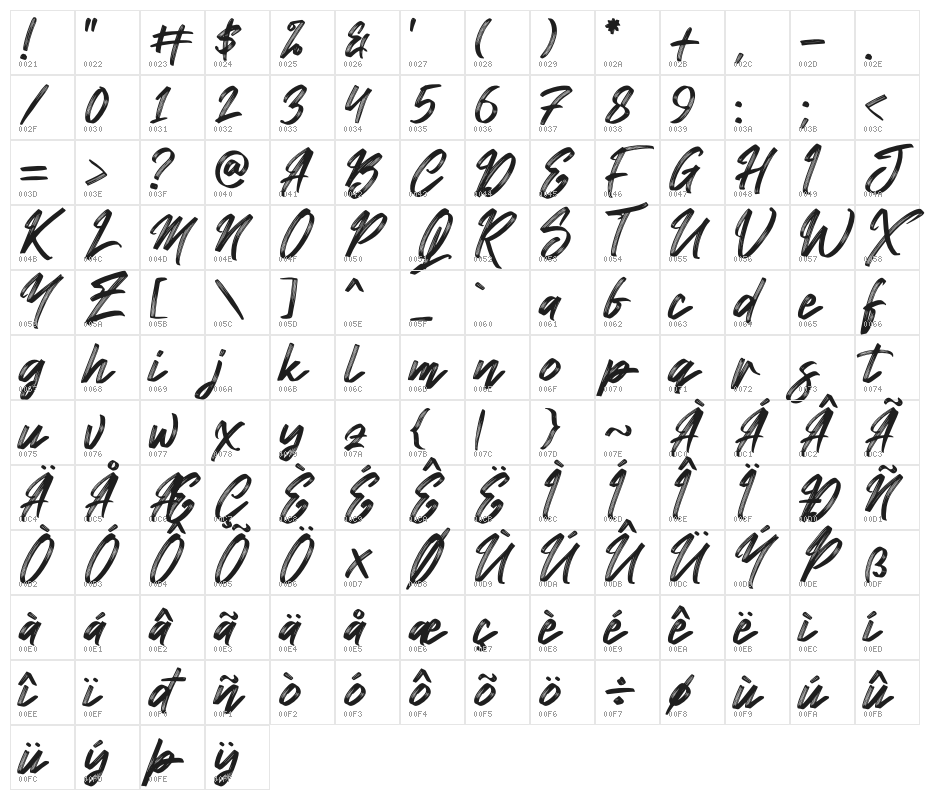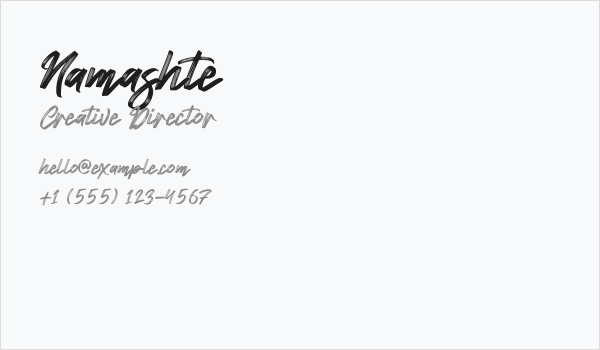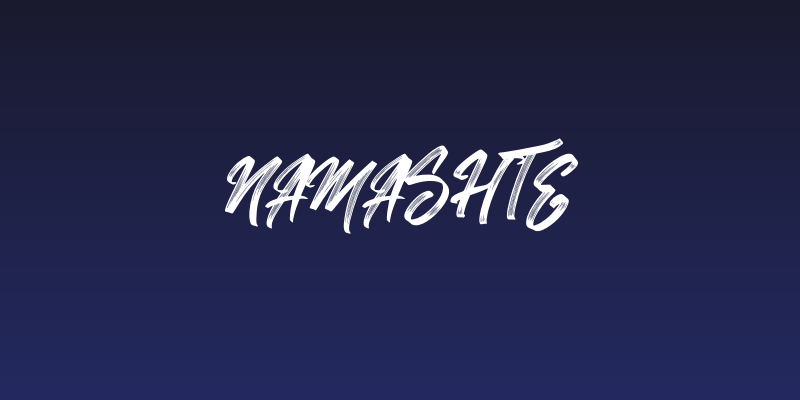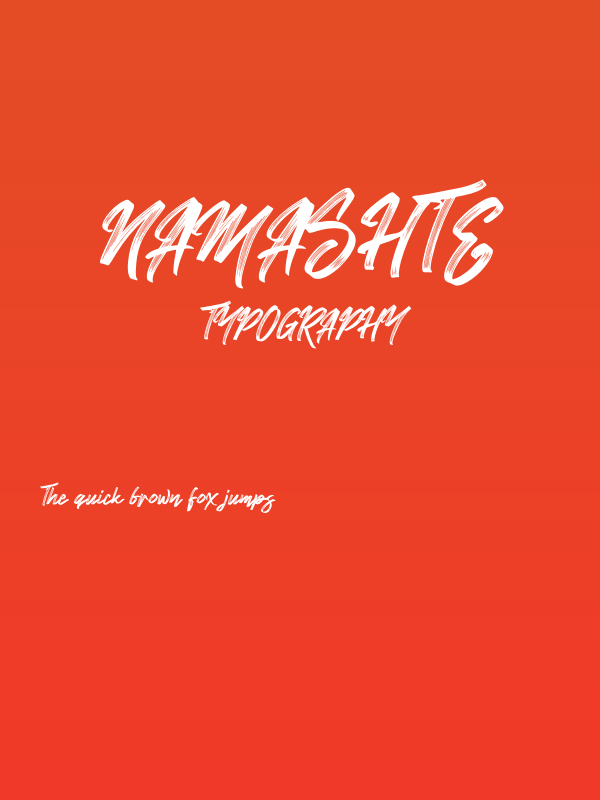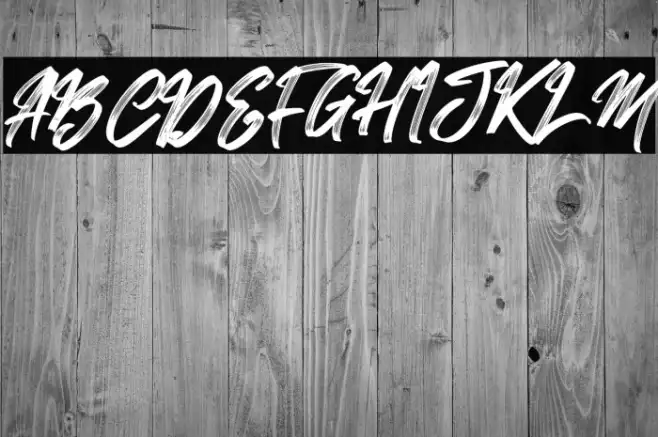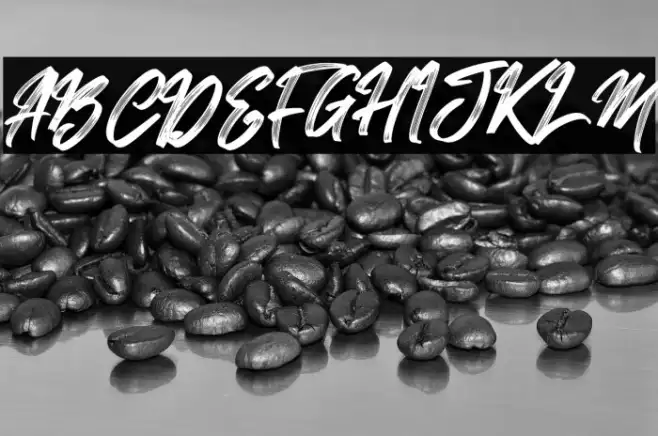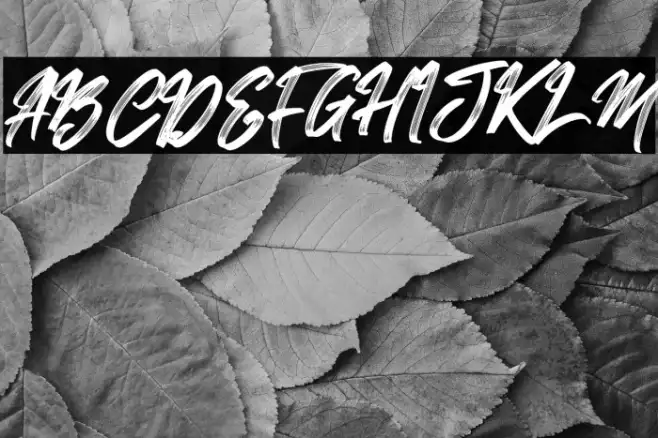
Namashte Font
Namashte Description
This font exudes a dynamic and energetic vibe with its bold, brush-like strokes. The letters are crafted with a sense of movement, giving them a hand-painted appearance. The uppercase and lowercase characters maintain a consistent style, with slightly exaggerated curves and angles that add to the font's expressive nature. The numbers and special characters follow the same artistic approach, ensuring a cohesive look across all elements. This font is ideal for projects that require a touch of creativity and flair, such as posters, branding, and artistic designs.
| Proposed Projects | Ideal for posters, branding, artistic designs, and creative projects. |